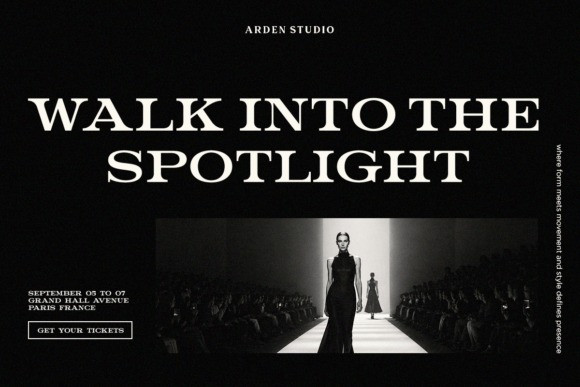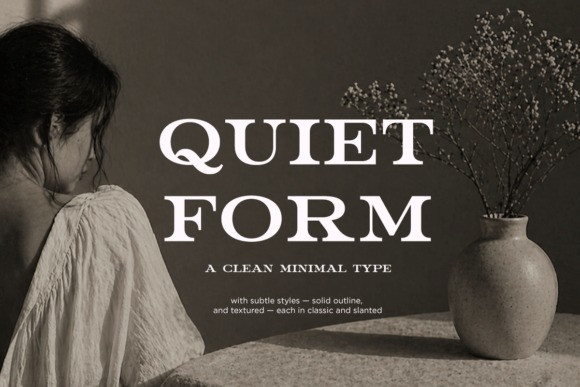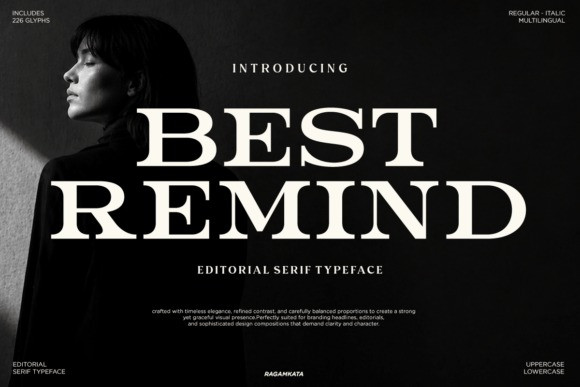
Best Remind Font
Best Remind Font an exquisite editorial serif typeface. This font is a magnificent exploration of timeless high-fashion typography, featuring heavy, blocky stems contrasted sharply against refined hairline bars and delicate transitional bracketed serifs. Engineered with full multilingual support, an italic companion variant, and a library of 226 glyphs, its broad, wide letterforms project an absolute sense of established luxury and commanding prestige. Best Remind is an extraordinary choice for high-end corporate identity branding, modern cinematic poster designs, luxury watch packaging, and sophisticated haute-couture editorial covers.